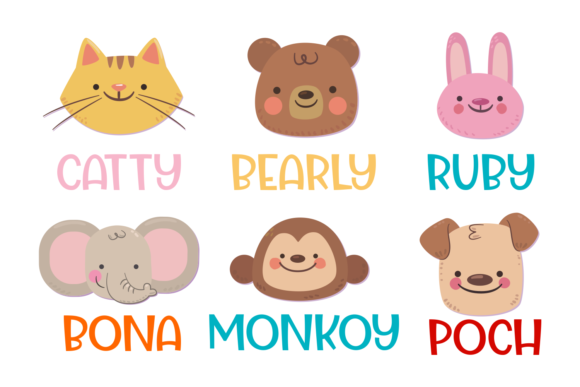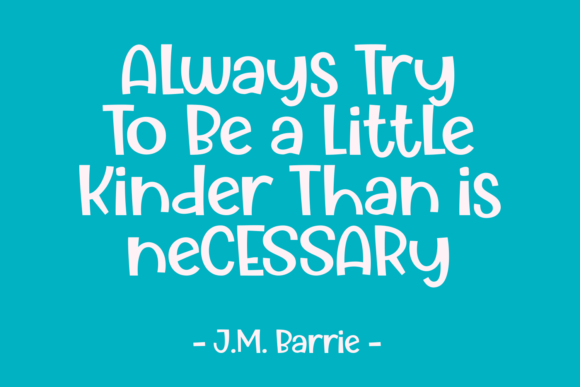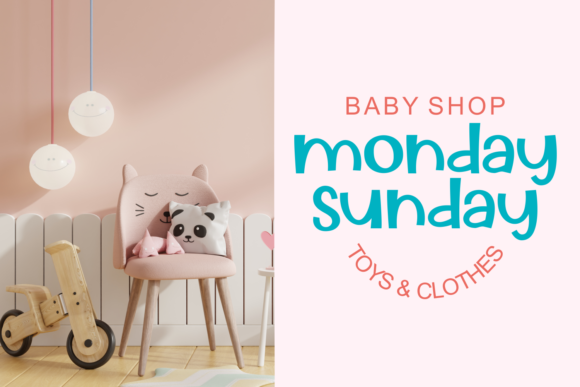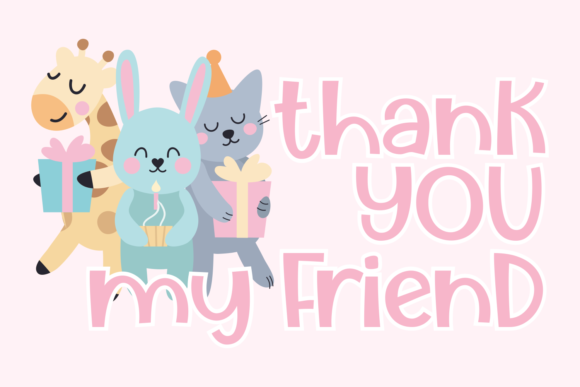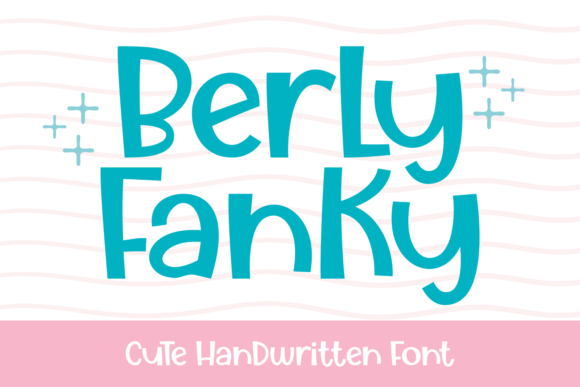
Introducing Berly Fanky Font: The Ultimate Choice for Playful Designs
Are you a designer or crafter looking for a font that adds a touch of playfulness and fun to your creations? Look no further than Berly Fanky Font! This cool and playful display font is perfect for cartoon-related designs, children’s games, and any project that requires a lovely touch. In this article, we’ll dive into the world of Berly Fanky Font and explore its features, benefits, and uses.
What is Berly Fanky Font?
Berly Fanky Font is a unique and creative display font designed to add a playful twist to your designs. Its fun and quirky style makes it perfect for projects that require a lighthearted and humorous approach. Whether you’re designing a logo, creating a children’s book, or crafting a fun and playful website, Berly Fanky Font is an excellent choice.
Key Features of Berly Fanky Font
- Playful and Fun Style: Berly Fanky Font boasts a playful and fun style that is sure to capture the attention of your audience.
- Display Font: This font is specifically designed as a display font, making it perfect for headlines, titles, and short paragraphs of text.
- Cartoon-Related Designs: Berly Fanky Font is ideal for cartoon-related designs, such as animated movies, TV shows, and comics.
- Children’s Games and Education: This font is also suitable for children’s games, educational materials, and activity sheets.
- Customizable: Berly Fanky Font can be customized to fit your specific design needs, making it a versatile choice for various projects.
Benefits of Using Berly Fanky Font
So, why choose Berly Fanky Font for your designs? Here are some benefits of using this amazing font:
- Adds a Playful Touch: Berly Fanky Font adds a playful and fun touch to your designs, making them more engaging and appealing to your audience.
- Unique and Creative: This font is unique and creative, setting your designs apart from others and making them more memorable.
- Improves Readability: Berly Fanky Font is designed to be easy to read, even in large quantities, making it perfect for children’s books and educational materials.
- Versatile: This font can be used for various projects, from cartoon-related designs to children’s games and more.
In conclusion, Berly Fanky Font is an excellent choice for designers and crafters looking to add a playful and fun touch to their creations. With its unique and creative style, this font is perfect for cartoon-related designs, children’s games, and any project that requires a lovely touch. So, download Berly Fanky Font today and take your designs to the next level!
- Is Berly Fanky Font suitable for children’s books?: Absolutely! Berly Fanky Font is perfect for children’s books, educational materials, and activity sheets.